Introduction to FitFont Service 04: “Automatic Fitting Tool”
Type Project develops and utilizes an automatic fitting tool to support “fitting” work to find the Japanese FitFont that perfectly fits the Latin font.
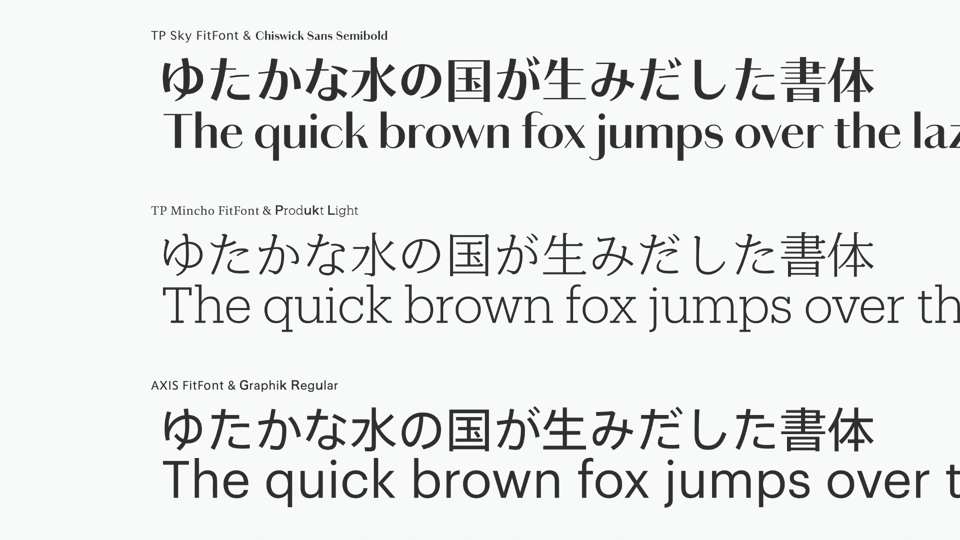
This tool obtains information, such as horizontal stem width, vertical stem width, character width, cap height, etc., from the target glyph to compare and calculate the Japanese FitFont that becomes a combination candidate, as well as enlargement ratio on the Latin side at the time of combination, baseline shift, etc. While using the obtained information as a reference, the actual mixed typesetting is visually checked and slightly adjusted in the end. Although the final judgment is made by the human eye, the automatic fitting tool can significantly reduce the time spent checking each combination of instances in a huge number.